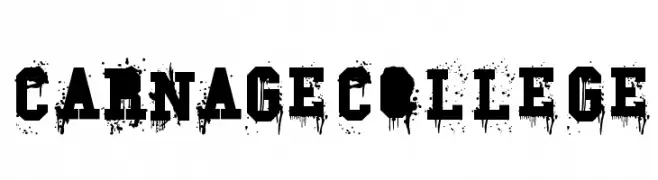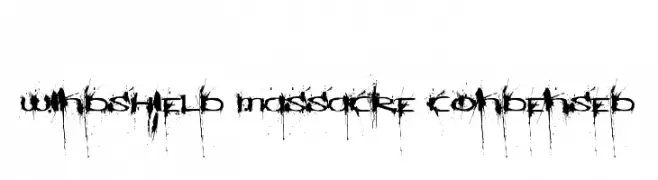
A playful, paint-splattered font with a bold and dynamic style.
A textured, expressive font with dynamic brush strokes and splatter effects.
A bold, grunge-style font with a splattered, distressed appearance.
A distressed, grungy font with splatter and drip effects for an edgy look.
A bold, gritty font with splattered, distressed strokes and a chaotic artistic vibe.
A bold, distressed font with a grunge texture and splattered ink effect.
A grungy, distressed font with a splattered ink effect and irregular strokes.
A bold, distressed font with a grunge aesthetic and textured splatters.
A playful, splatter-textured font with bold, rounded characters.